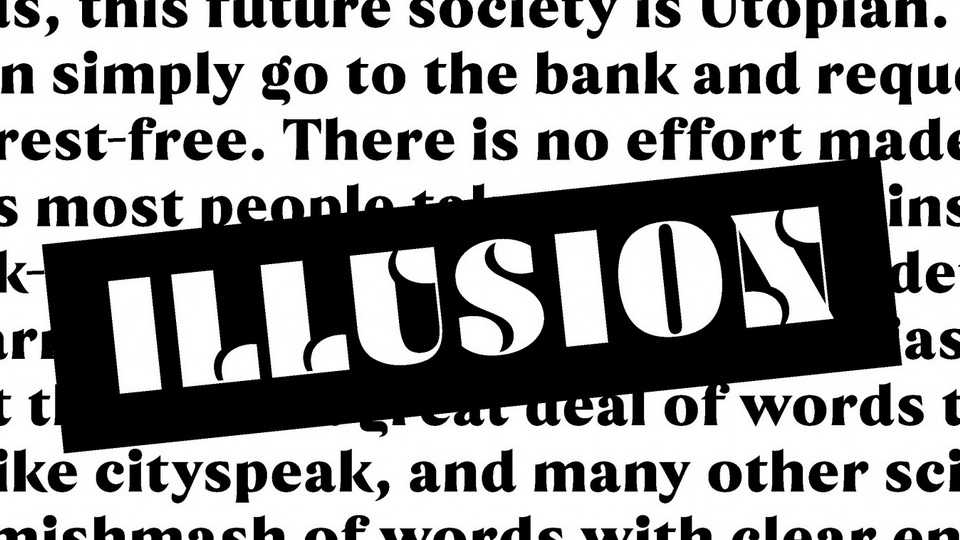
Download Hallucinda font, a display typeface inspired by «The Futurological Congress» novel by Stanisław Lem that explores the topic of living in an illusion.
Designer: Natalia Błędowska